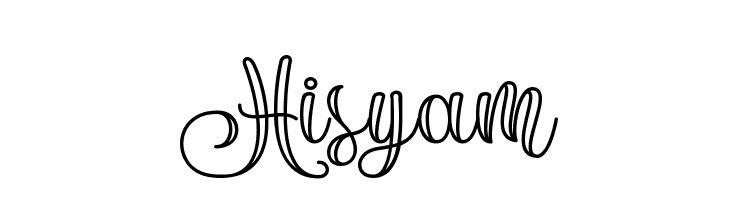
An elegant script font with intricate curves and historical charm.
An elegant and flowing script font with ornate letterforms and graceful curves.
An elegant and flowing script font with decorative uppercase and fluid lowercase letters.